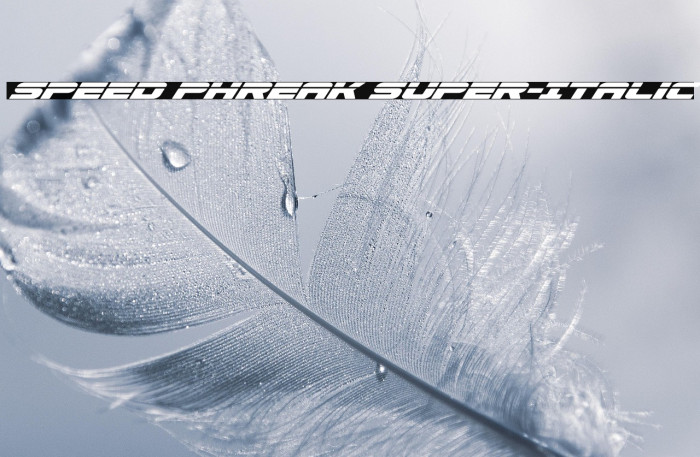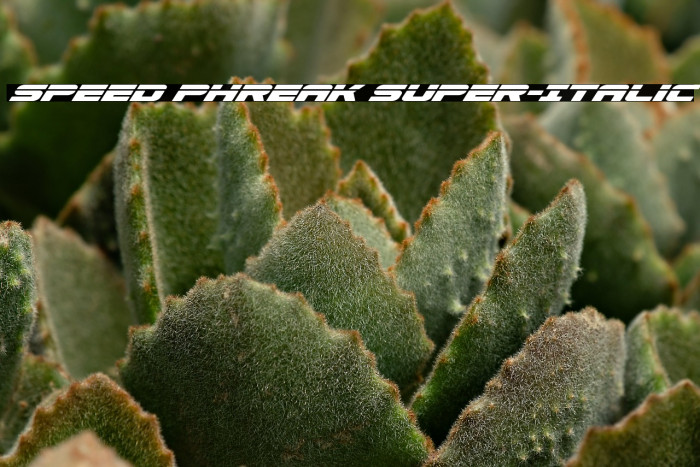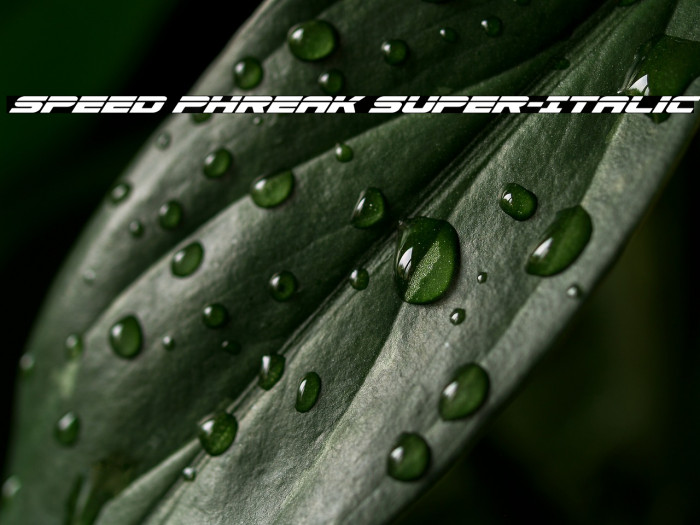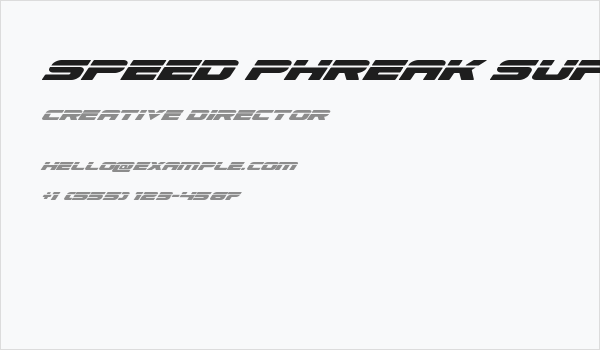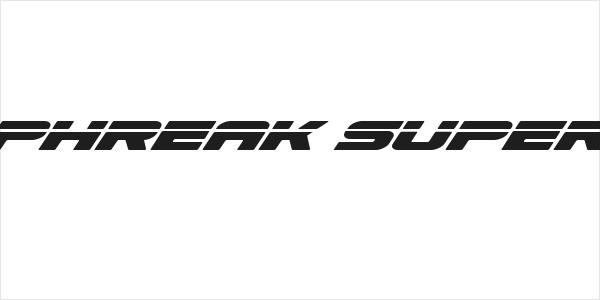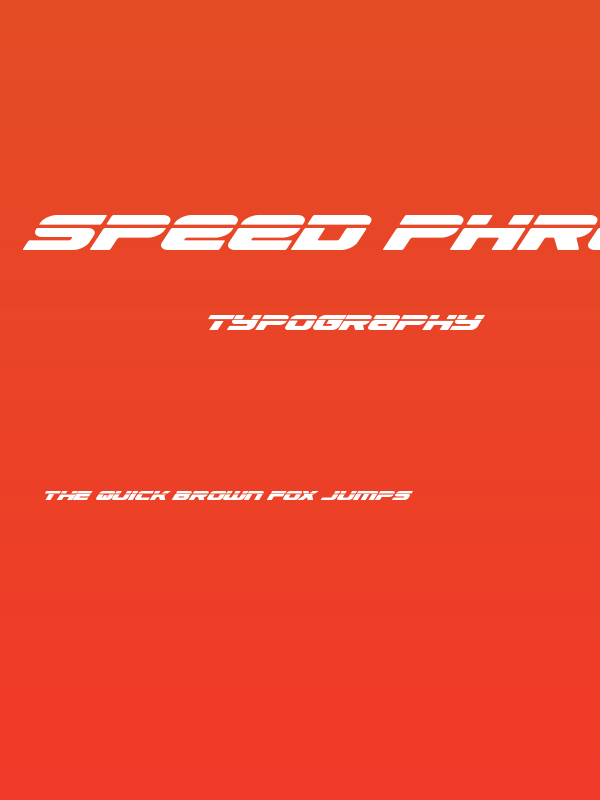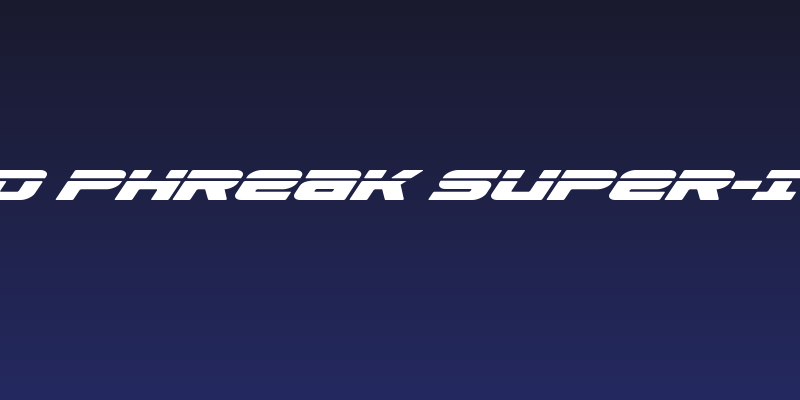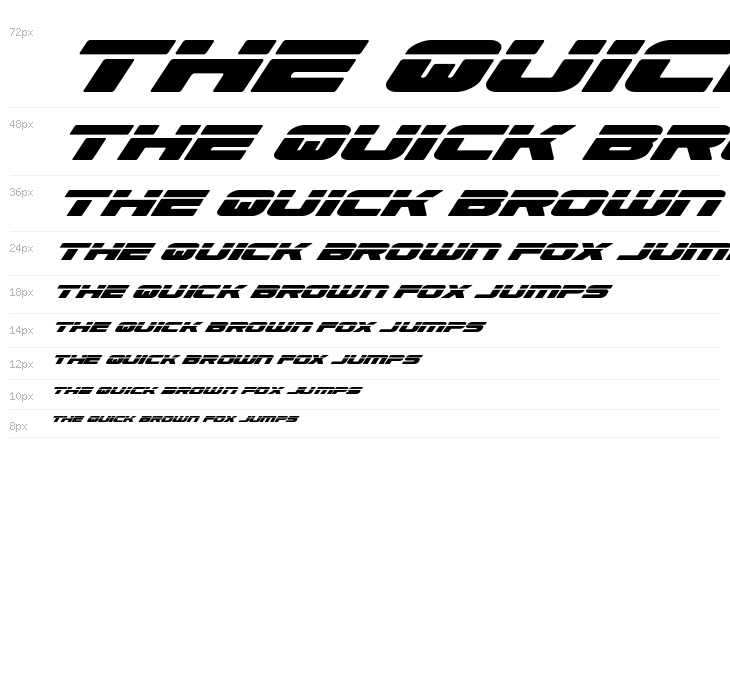
Speed Phreak Super-Italic Font
Speed Phreak Super-Italic Description
This font exhibits a dynamic and futuristic design, characterized by its italicized and bold appearance. The letters are sharply angled, giving a sense of speed and motion. The strokes are thick and consistent, with a slightly condensed width that enhances its compact and energetic look. The characters are tightly spaced, contributing to the overall streamlined aesthetic. This font is ideal for projects that require a modern and edgy feel, such as technology branding, sports team logos, or automotive advertisements. Its distinctive style makes it stand out, capturing attention with its sleek and aggressive form.
Use CaseLogos, Headlines
Proposed ProjectsIdeal for technology branding, sports logos, automotive ads, and futuristic designs.